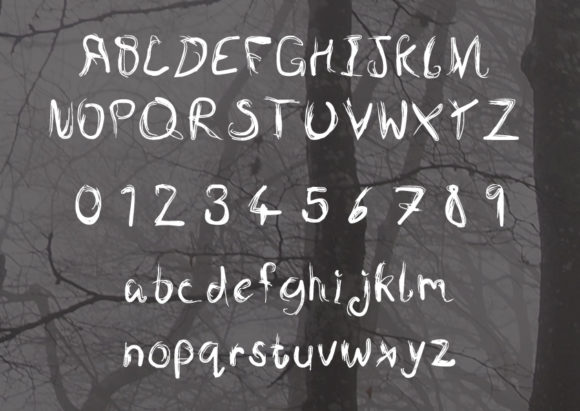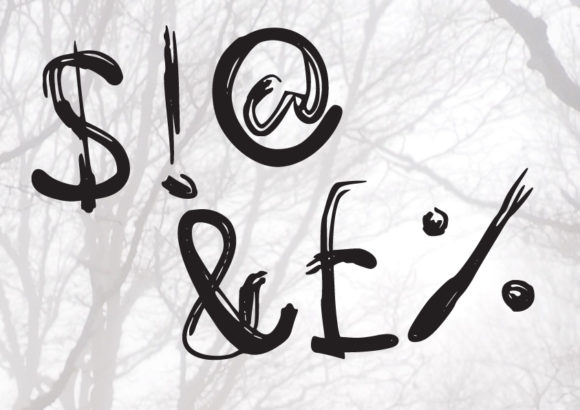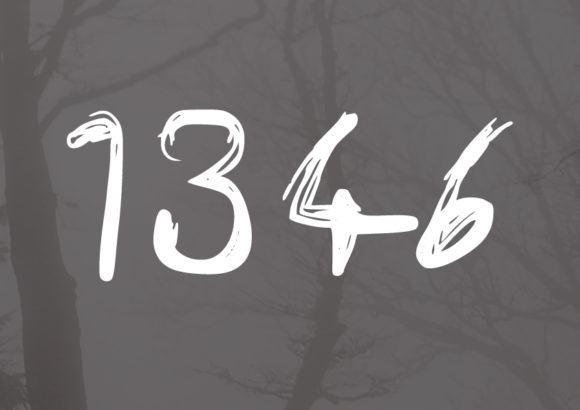
Introduction to Haunted Tree Font
Haunted Tree is a creepy and haunting font inspired by the twisted branches of old trees and forests.
It will look its best when used in Horror or Halloween projects .
Key Features of Haunted Tree Font